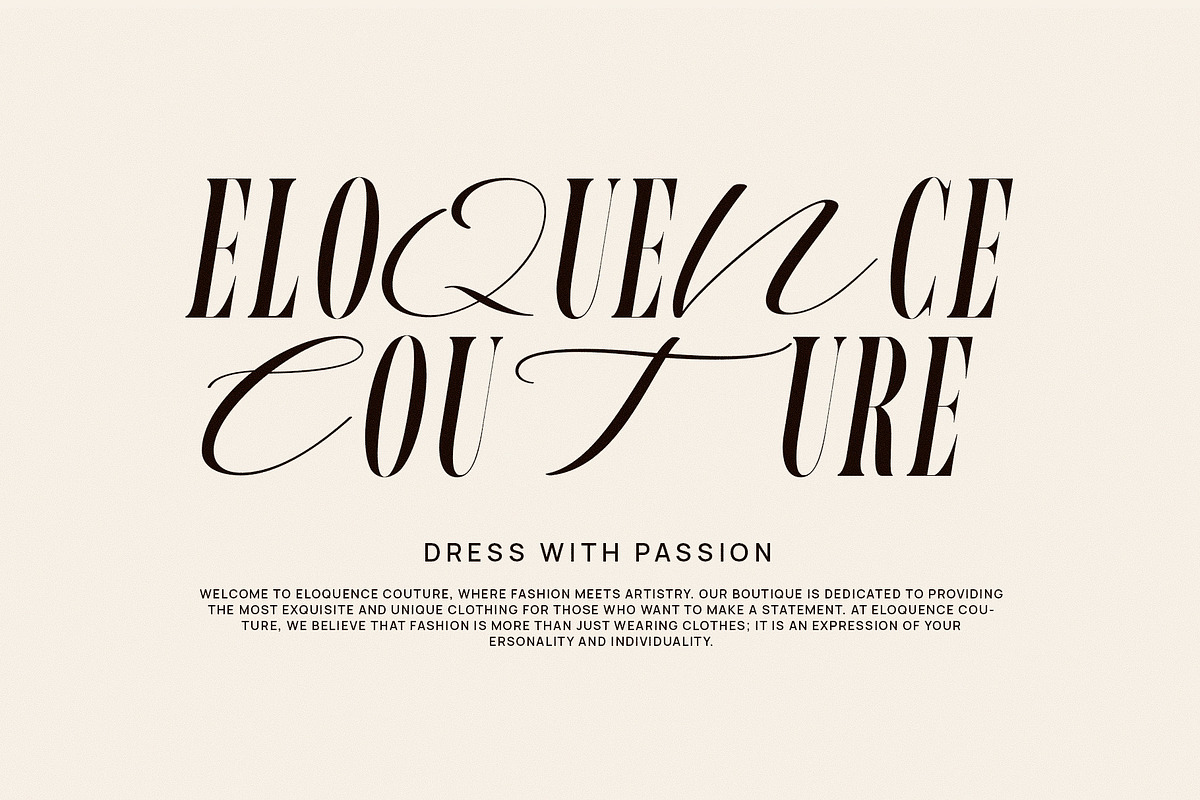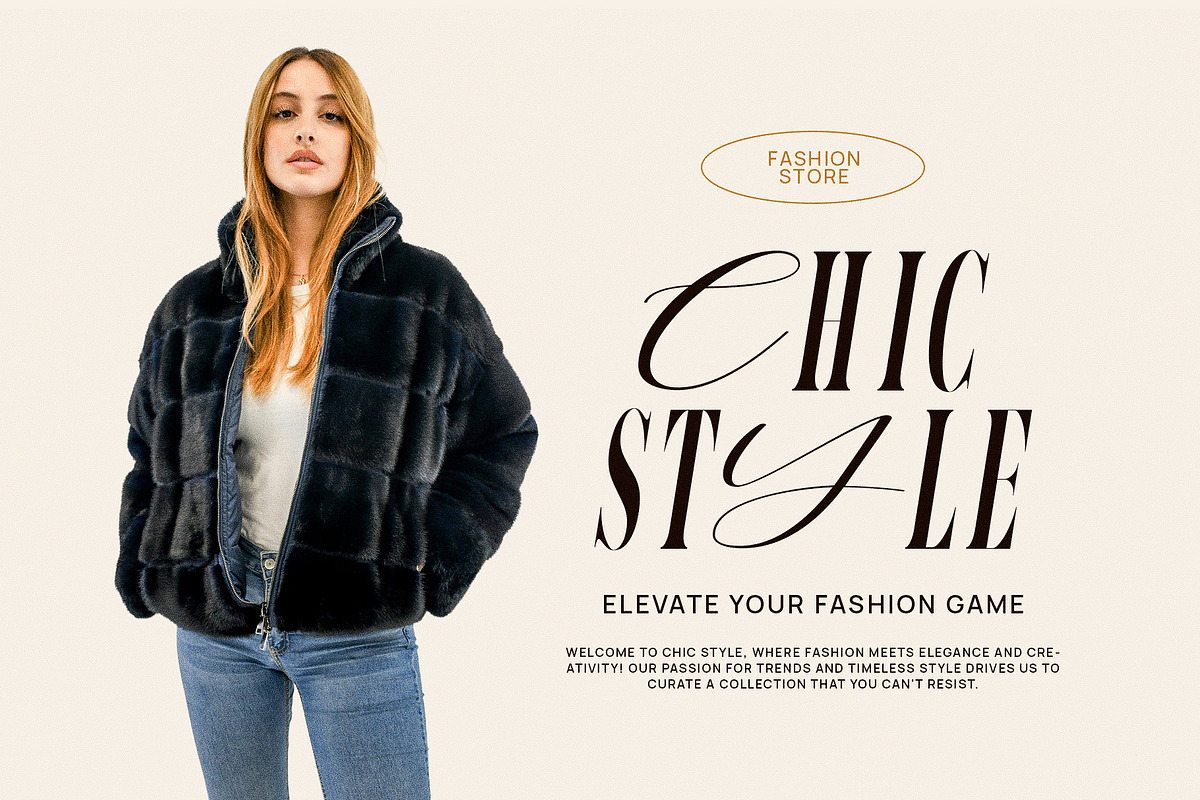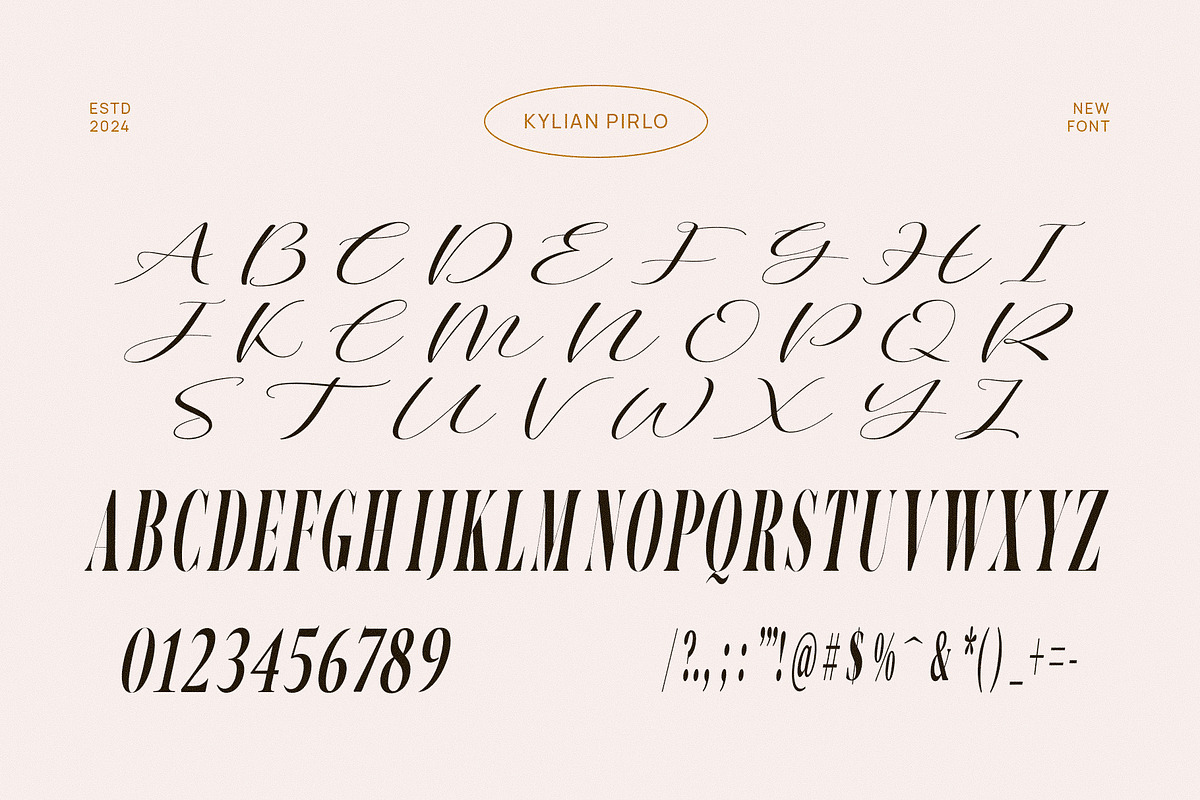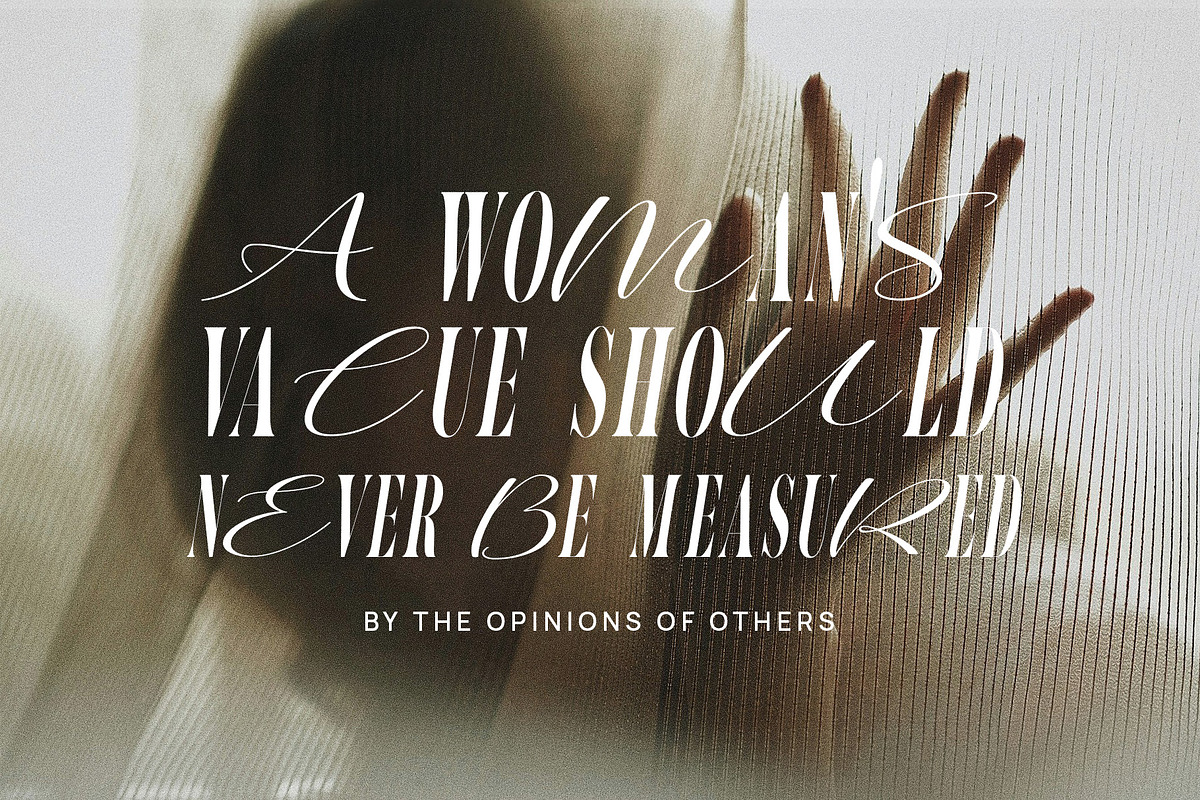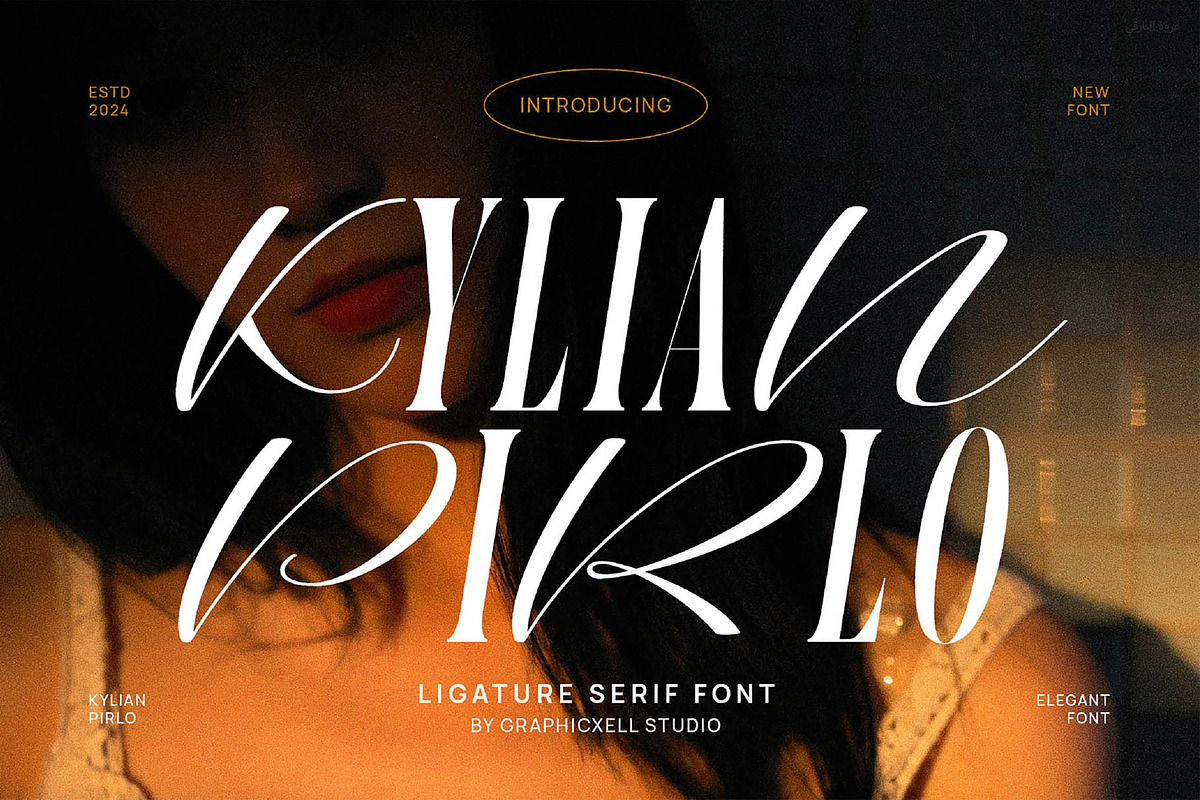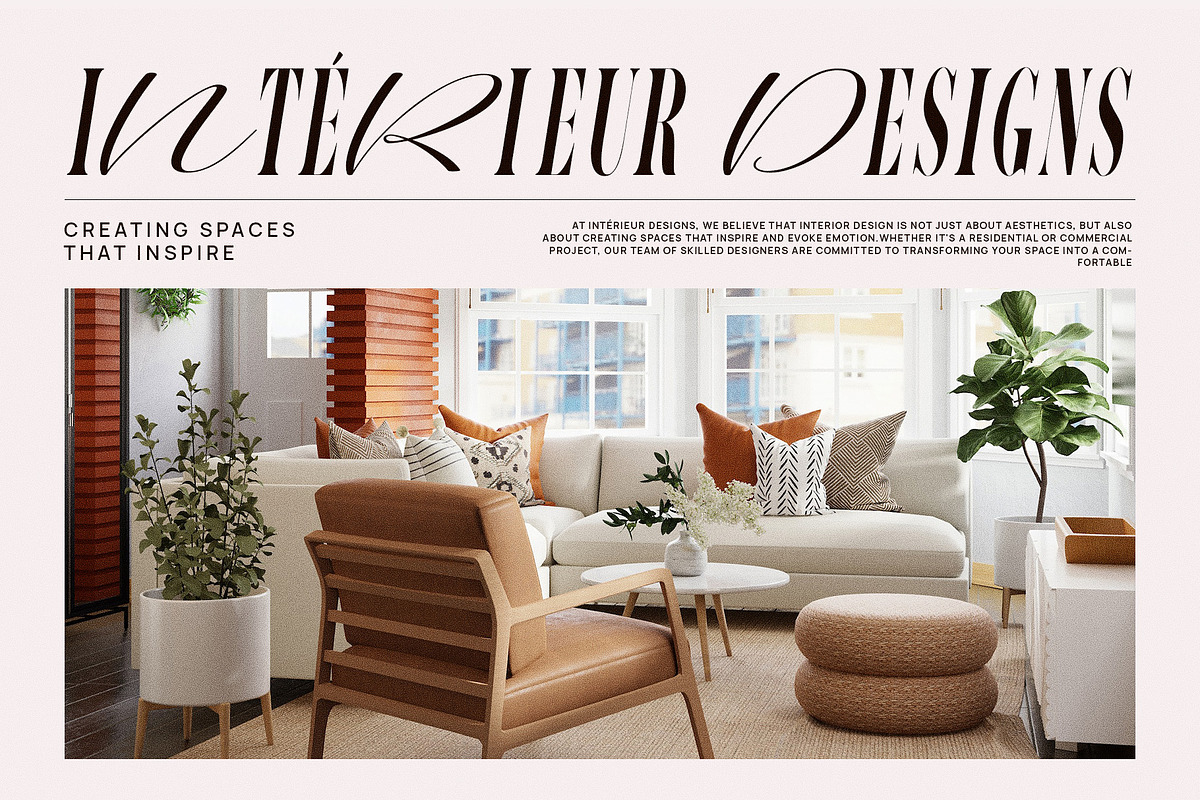
Kylian Pirlo Elegant & Premium Serif
Kylian Pirlo Elegant & Premium Serif is a serif font that can make a design much more interesting. This font looks stunning due to its unique yet elegant style. This premium serif font combines firm straight lines and flexible curves. The transition from the thick to the thin lines is very clear, creating its own attractiveness. The lovely ligature adds a special decoration that makes it much more impressive. Besides being elegant, the Kylian Pirlo Elegant & Premium Serif font also brings a modern style. The classy look makes this font recommended for a graphic designer. In fact, it works excellently on various projects including invitations, logos, branding, ads, etc. Even though it has a more complex writing style, nothing to worry about its readability. So, this font really increases your design’s value without causing confusion. Now, there’s nothing to be afraid of trying this font. As a graphic designer, getting the Kylian Pirlo Elegant & Premium Serif font is a must.